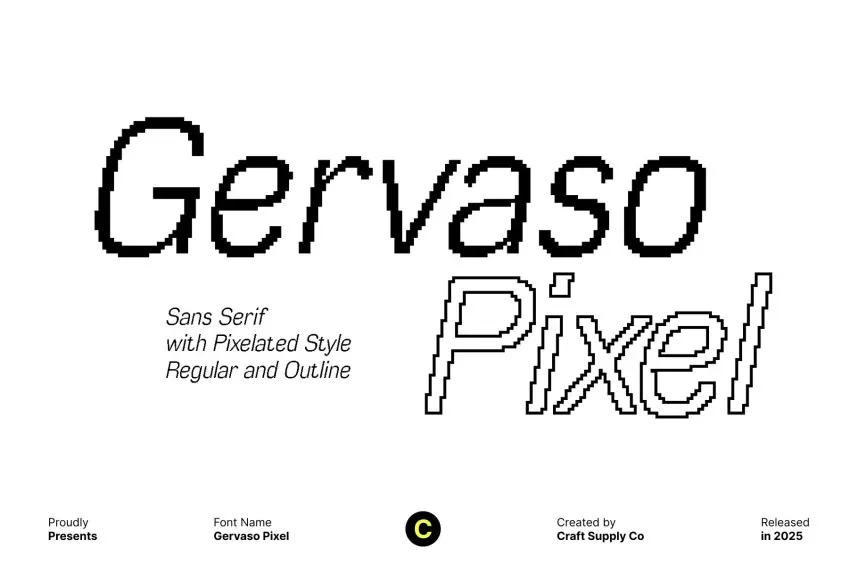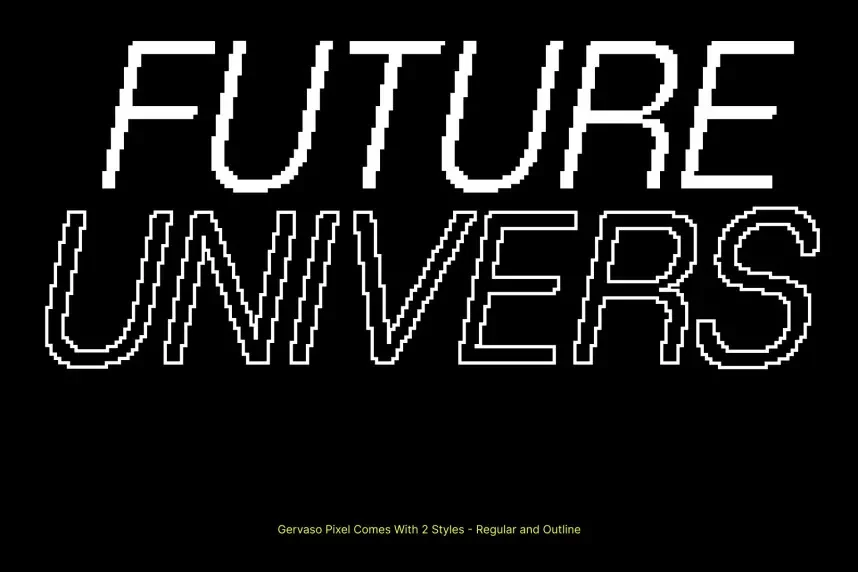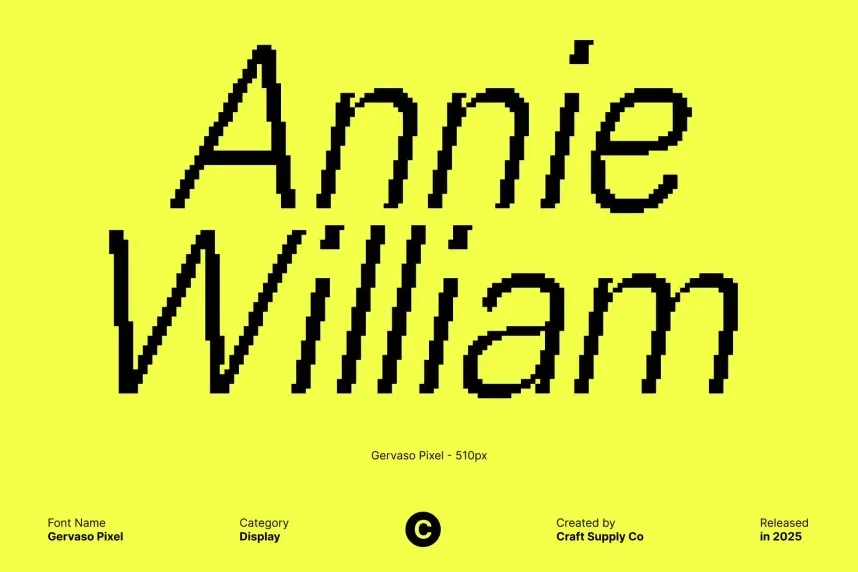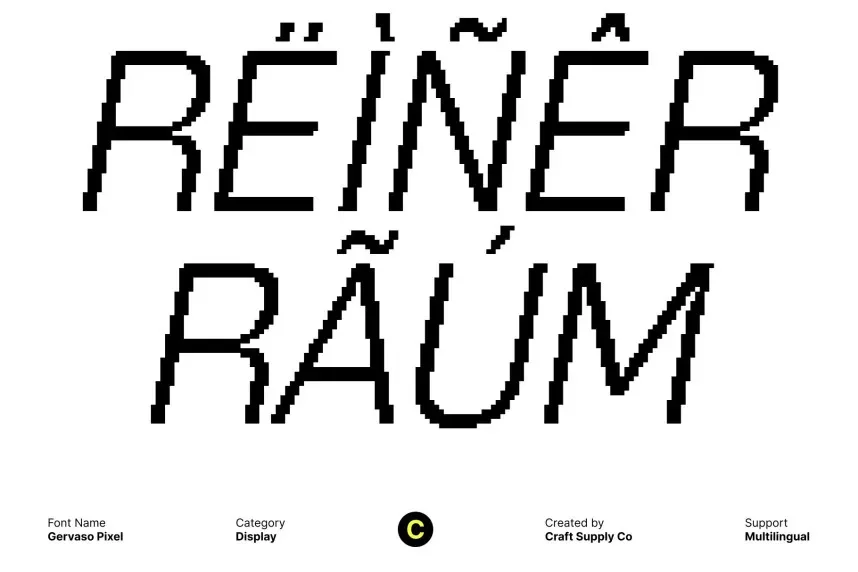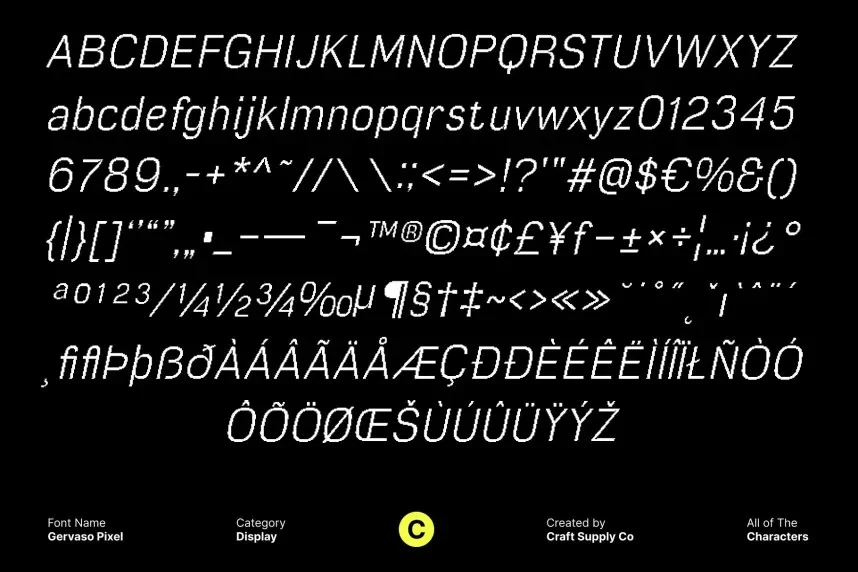
Gervaso Pixel Font is a digital-inspired display typeface characterized by its pixelated design and high-tech aesthetic. Its structured, blocky letterforms make it suitable for projects that require a retro, tech-inspired look, such as video games, websites, and digital signage.